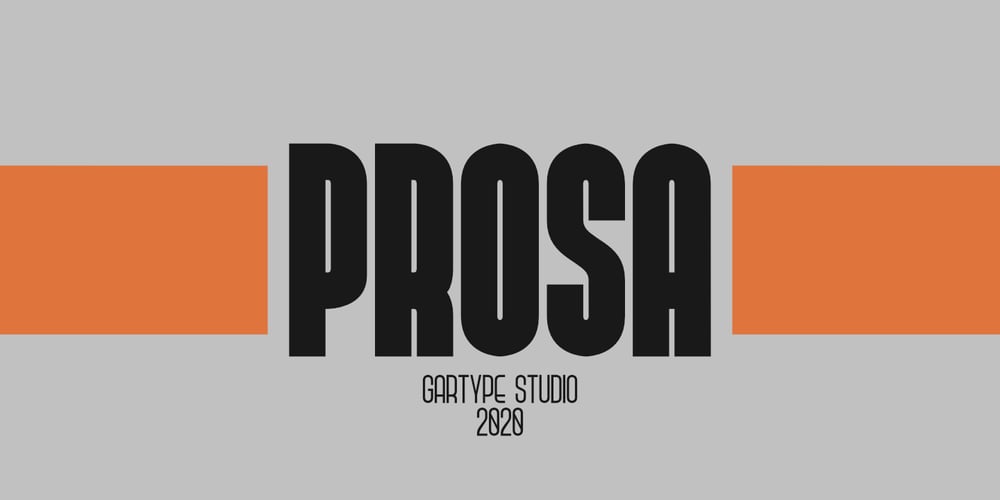
Prosa GT
Prosa GT font
Prosa GT Font Family was designed by Gumilang Anggara Ruslan and published by Gartype Studio. Prosa GT contains 11 styles and family package options. Introducing Prosa GT is a condensed sans serif which has styles from thin to black to make your design more variative and unique. Good for bold branding, titling and headline who has come to be seriously and fun. This typeface can be so serious, fun, and bold it depends on for what purpose.